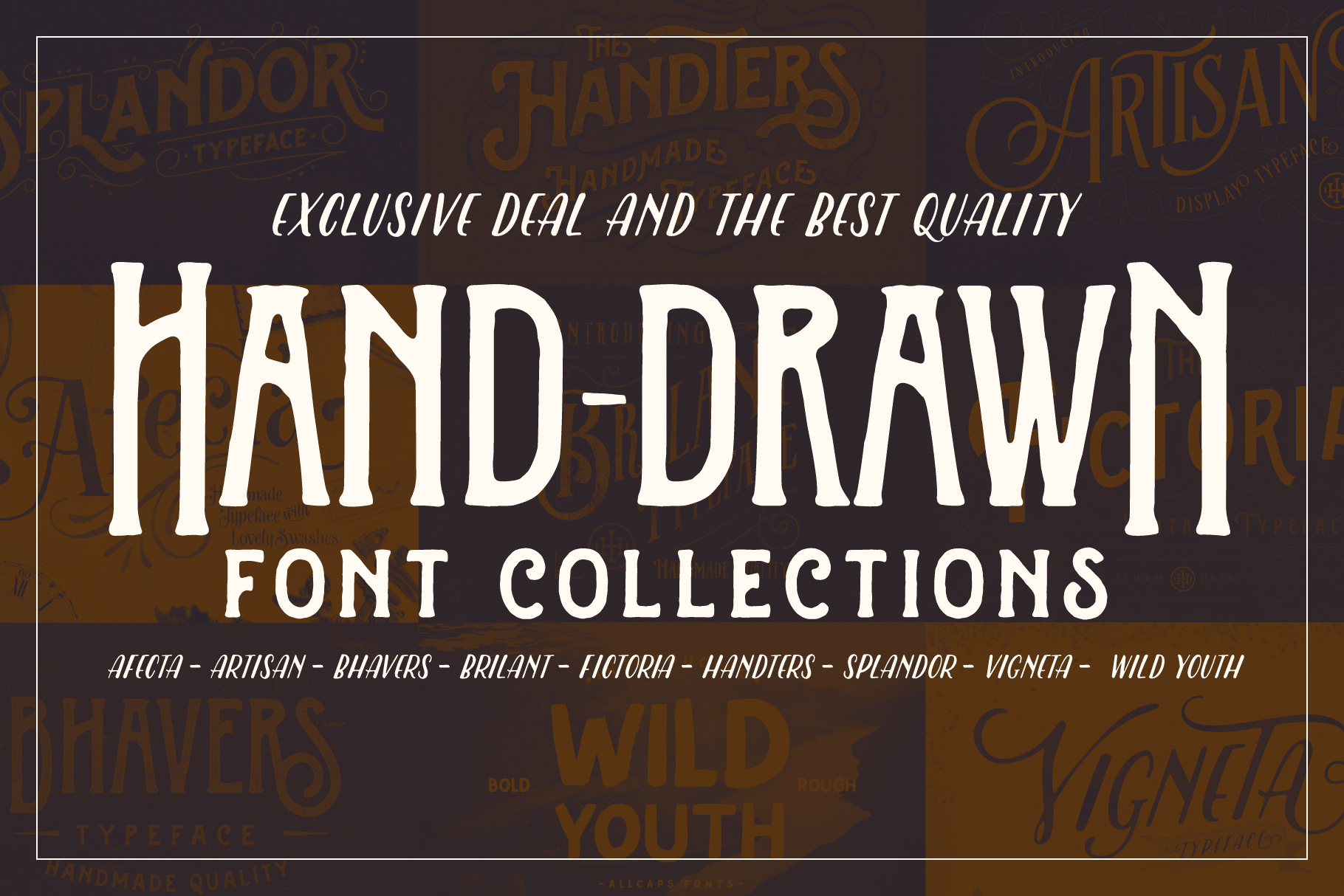
Handdrawn Font Collections
This offer 9 font display with handdrawn feel, and there is a bonus of ornament, graphic pack, and poster in some font. Supports opentype feature. this can save time in working on your project. This font good for vintage design, t-shirt, logo, labels, posters and etc.